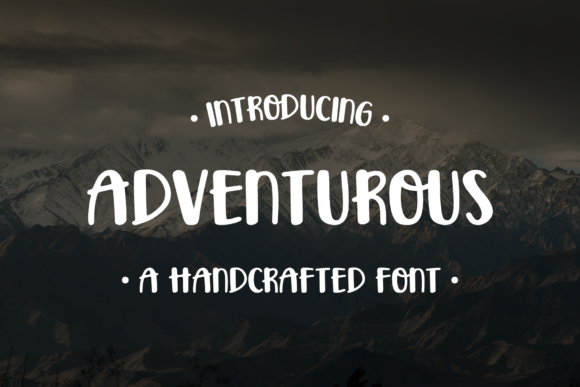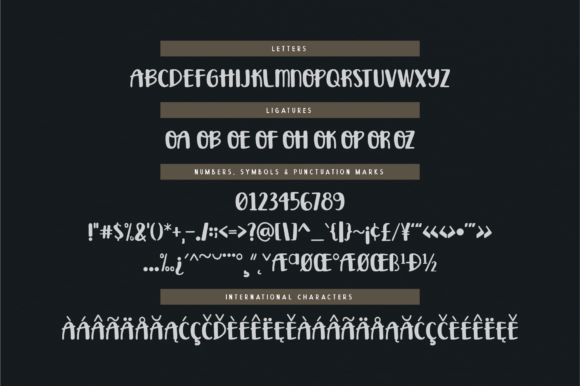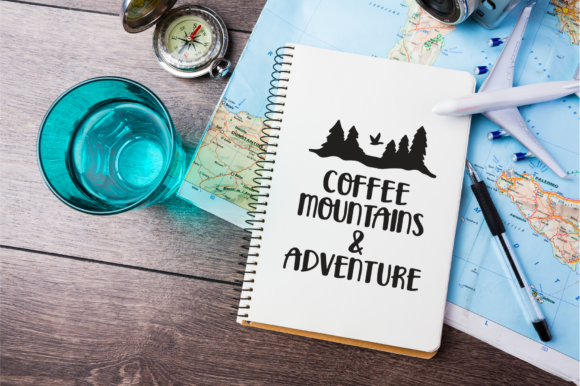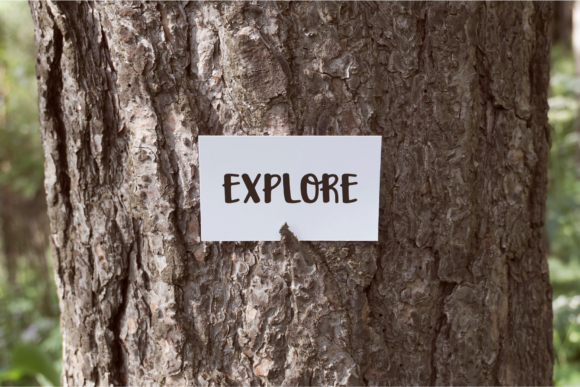
HomeScript FontsAdventurous Font Script Fonts Adventurous Font FacebookXPinterestWhatsApp Adventurous Font Poster 2 Adventurous Font Poster 3 Adventurous Font Poster 4 About Adventurous Font The Adventurous is a handcrafted font with bold and striking letters. DOWNLOAD ON CREATIVE FABRICAThis font is sold and delivered by Creative Fabrica. Font Canyon may earn a commission if you buy through this link. People also explored Gooday Font Angelica Maya Font Candy Font Havana Font Rushmore Font Snowlove Font Bullvero Font Christmas Melody Font Angellina Font 351 0 TagsAdventurous Font Previous articleStibold FontNext articleMeli Melo Font LEAVE A REPLY Cancel reply Comment: Please enter your comment! Name:* Please enter your name here Email:* You have entered an incorrect email address! Please enter your email address here Website: Save my name, email, and website in this browser for the next time I comment. Personal Use Free Earwig Factory Personal Use Free Read more about this font Nugo Sans Personal Use Free Read more about this font Crack Man Personal Use Free Read more about this font Bestlife Personal Use Free Read more about this font BLOG Transform Your Website: Elevate Your Typography with 7 Best Web Font Generators Are you ready to transform your website's typography from ordinary to extraordinary? Great! Today, we're diving into the world of web font generators, which... How to Cut Any Font on Cricut: Convert a Font to SVG (Free) Modern Sans-Serif Fonts That Brands Love in 2025 Best Fonts for T-Shirt Design – Top 2025 Picks